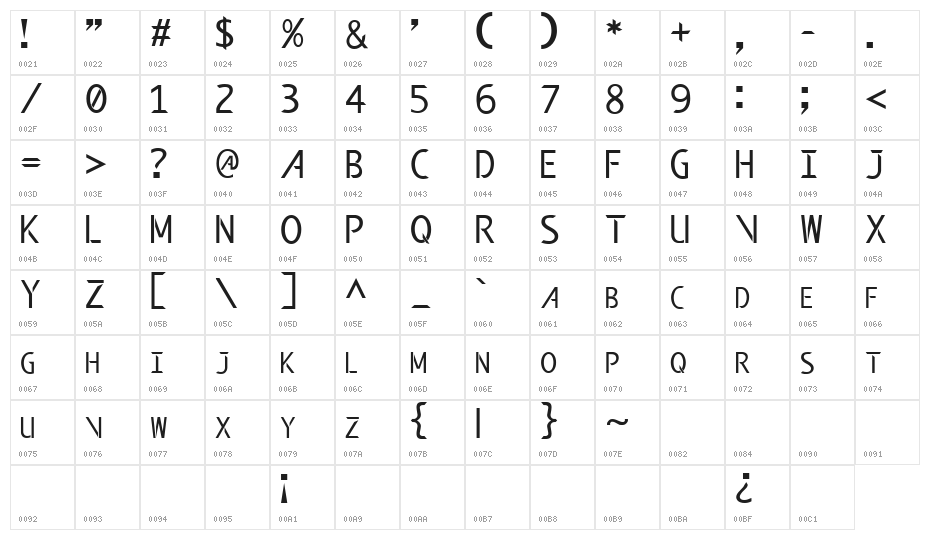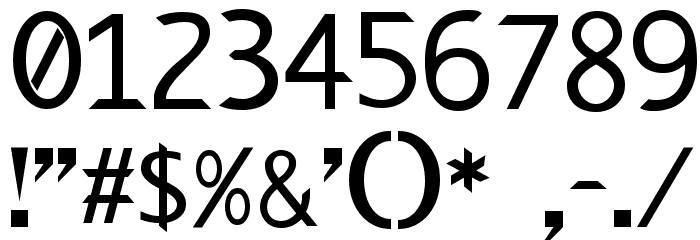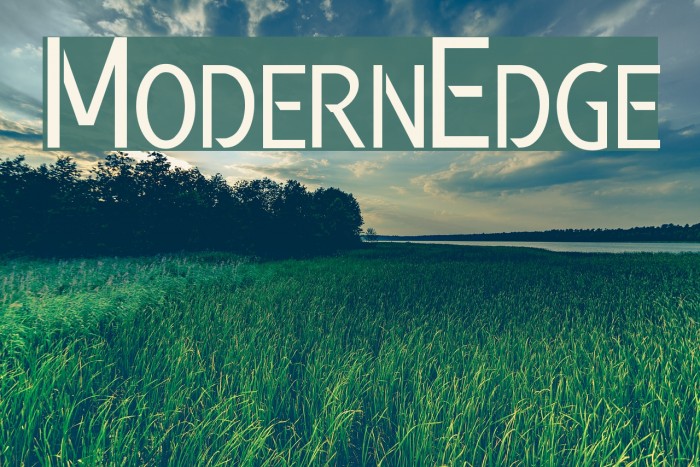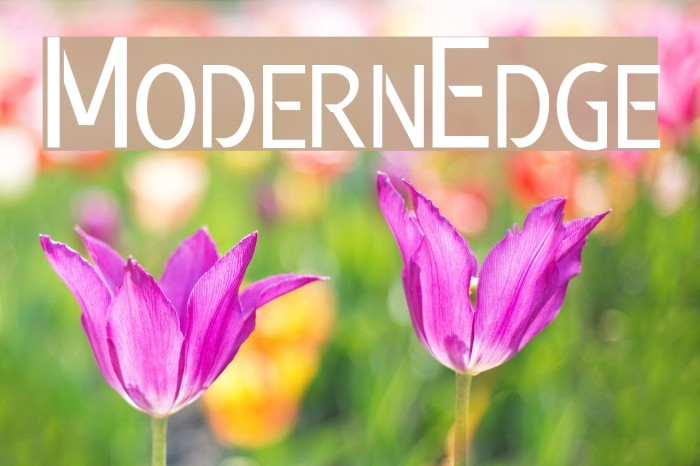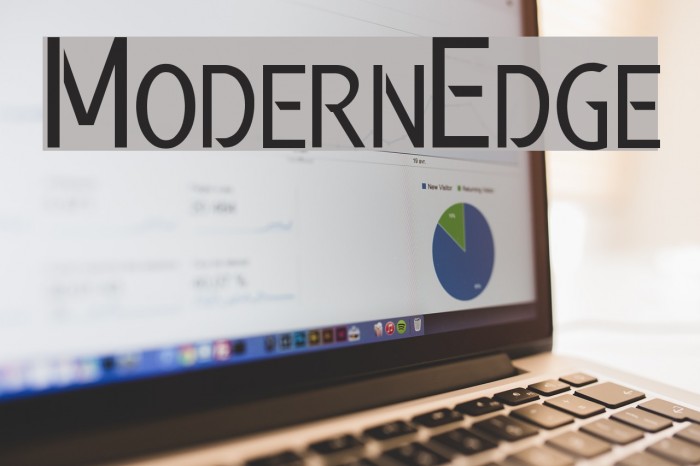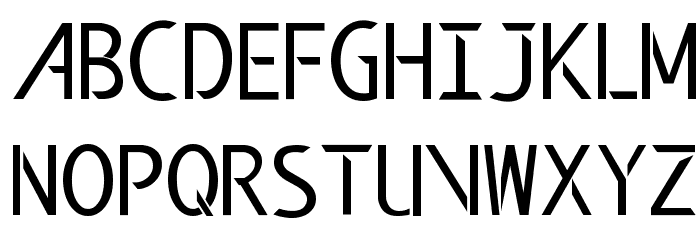
Modern Edge Font
Modern Edge Description
This font features a modern and edgy design with sharp angles and geometric shapes. The uppercase letters are bold and striking, with unique cuts and lines that give them a futuristic appearance. The lowercase letters maintain a consistent style, complementing the uppercase with their sleek and angular forms. The numerals are clear and distinct, following the same geometric theme. Special characters are designed with precision, adding to the overall contemporary feel. This font is perfect for projects that require a bold and modern aesthetic.
| Overall Style | Modern, Futuristic |
| Proposed Projects | Ideal for branding, advertising, posters, and any project needing a futuristic and bold look. |